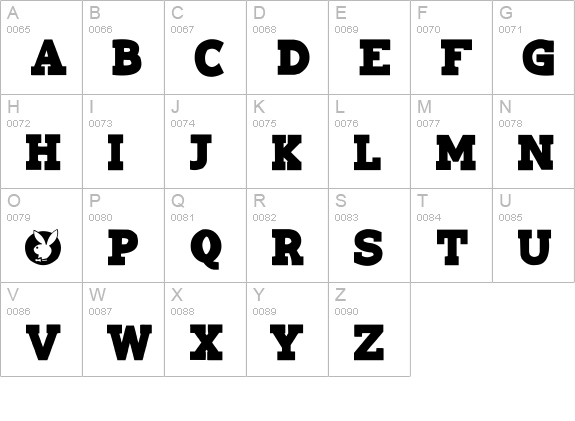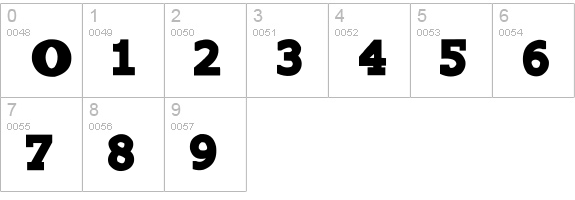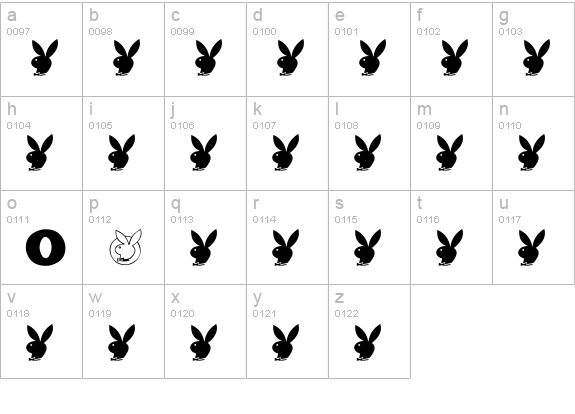
Playtoy font is a whimsical and playful typeface that exudes a sense of fun and creativity. With its rounded edges and cheerful appearance, Playtoy is perfect for adding a touch of lightheartedness to your design projects. Whether you're working on a children's book, a birthday invitation, or a playful branding project, this font is sure to bring a smile to your audience's face. What's even better is that Playtoy font is available for free download at FontsMarket.com. Yes, that's right – you can add this delightful font to your collection without spending a dime. So why wait? Head over to FontsMarket.com today and start using Playtoy font to infuse your designs with a playful charm that will captivate your audience.